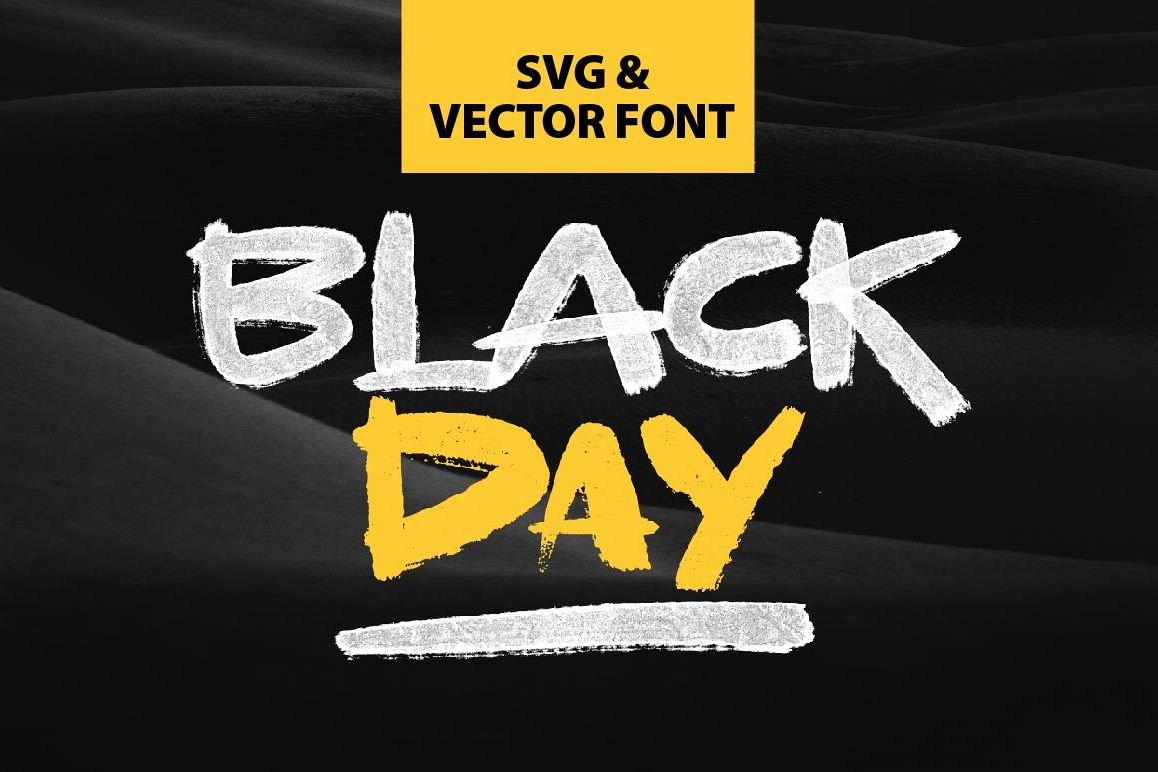
BLACKDAY - SVG & VECTOR font
BLACKDAY This Font will look gorgeous on all your designs, invitation, poster design, book design, branding materials, logo's, t-shirt and all project design other. with 2 style font, SVG & VECTOR Font.
BLACKDAY contains standard characters, all character is Uppercase, numbers, punctuation and international glyphs. You will receive OTF, TTF files. includes 2 Style Font, SVG & VECTOR